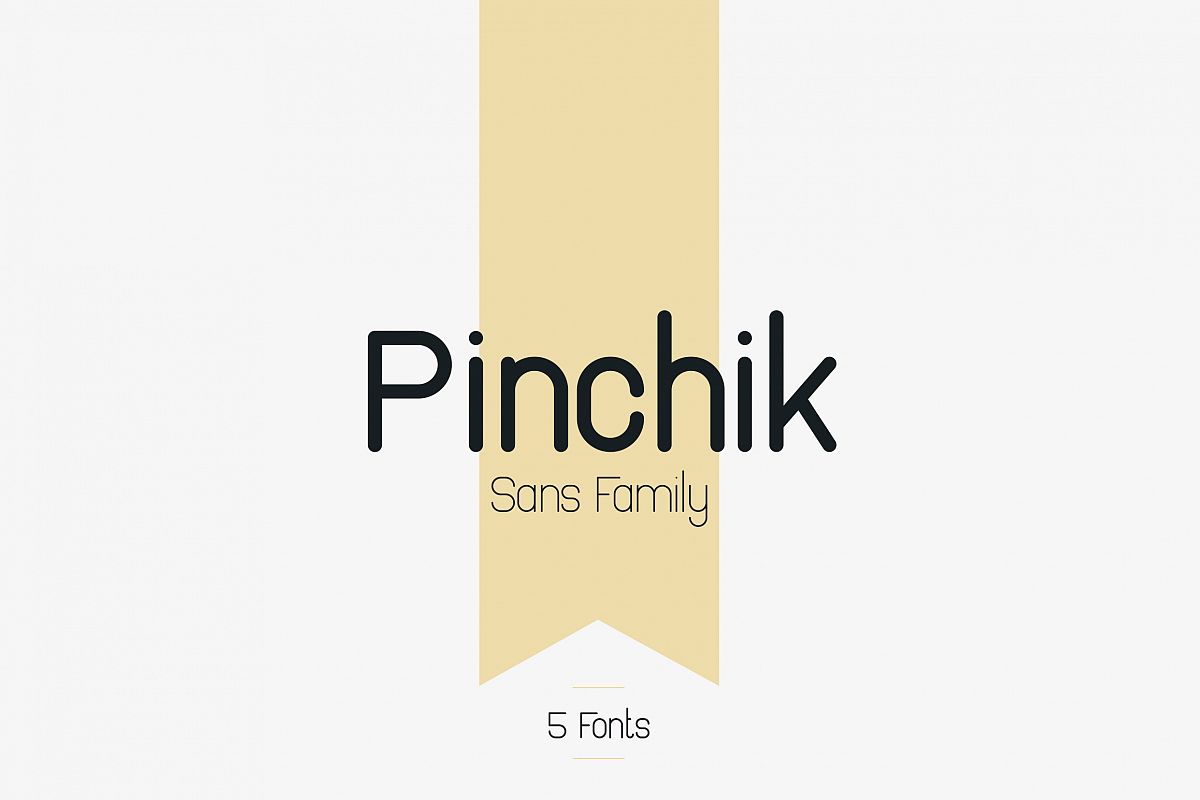
Pinchik Sans Family
Pinchik
Pinchik sans serif font family
Pinchik is clean, rounded sans serif typeface with 5 fonts and multilingual support. It's a very versatile font that works great in large and small sizes.
Pinchik is perfect for branding projects, home-ware designs, product packaging, magazine headers - or simply as a stylish text overlay to any background image.
• Uppercase,lowercase,numeral,punctuation & Symbol
• Multilingual
• Light
• Regular
• Bold
• ExtraBold
• Black